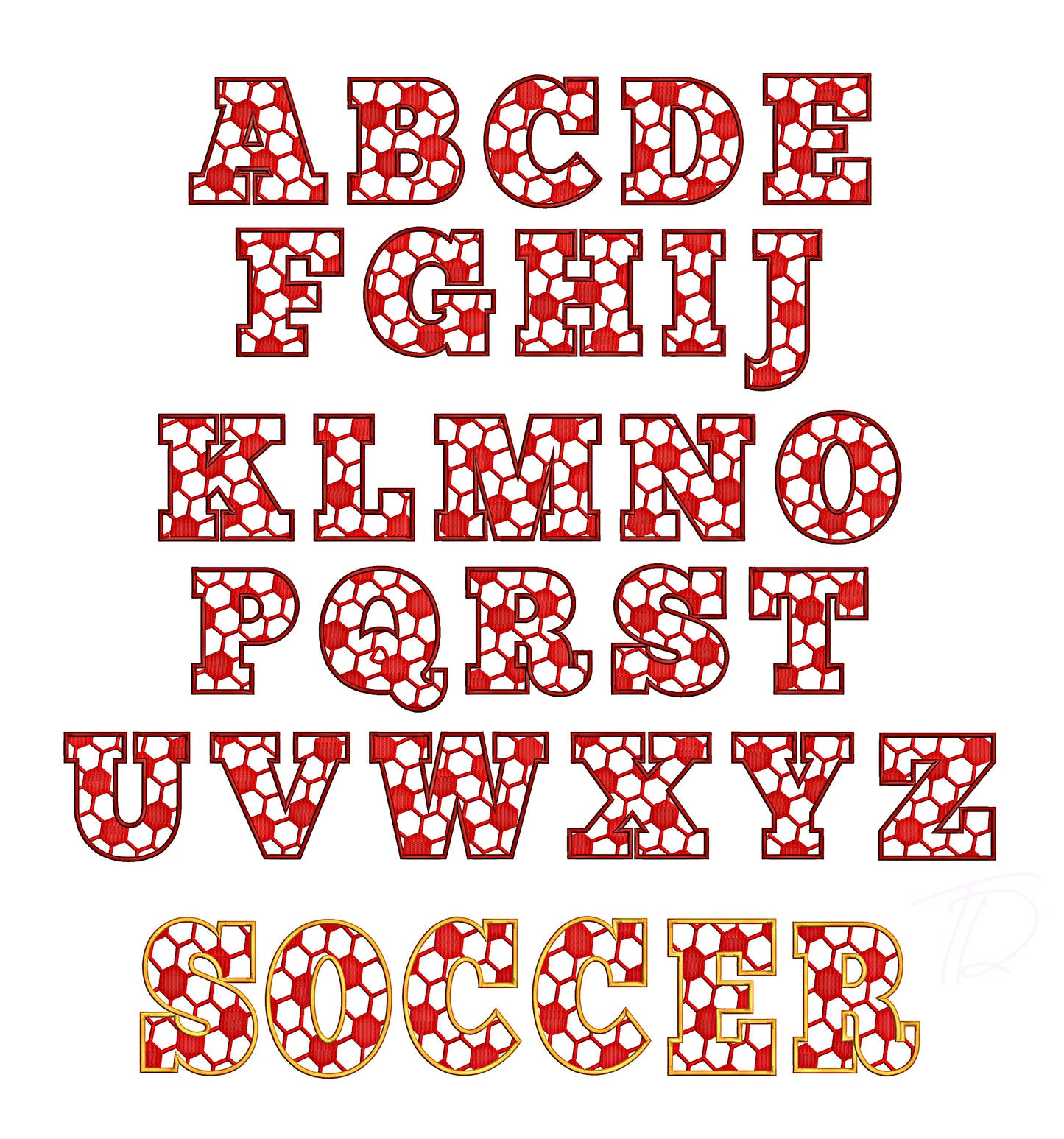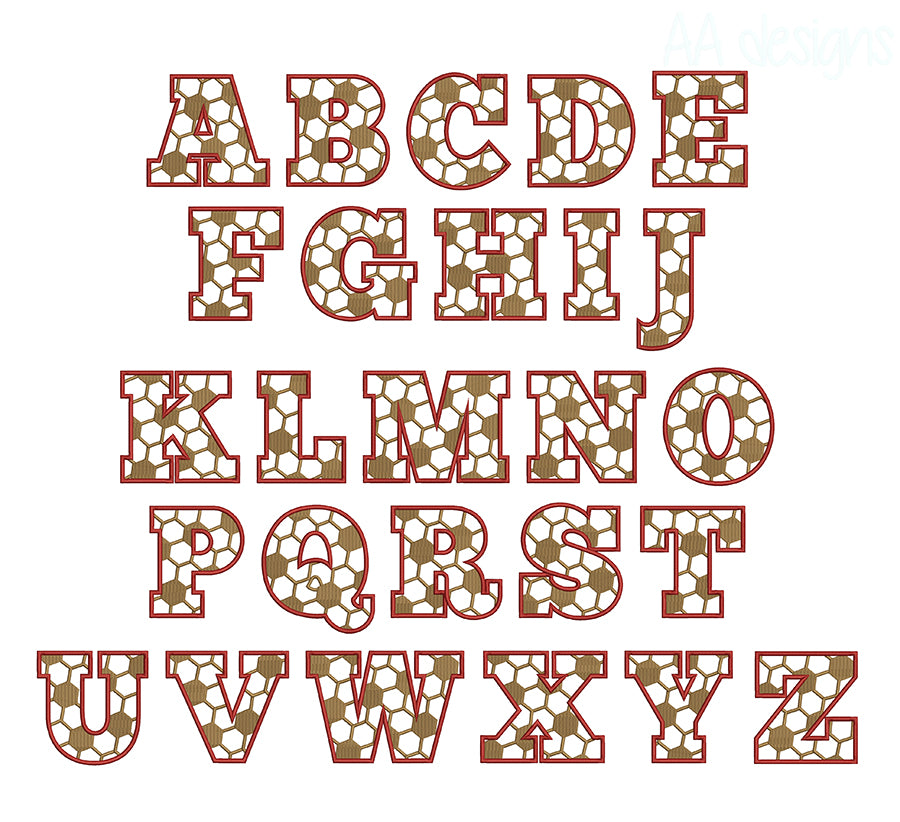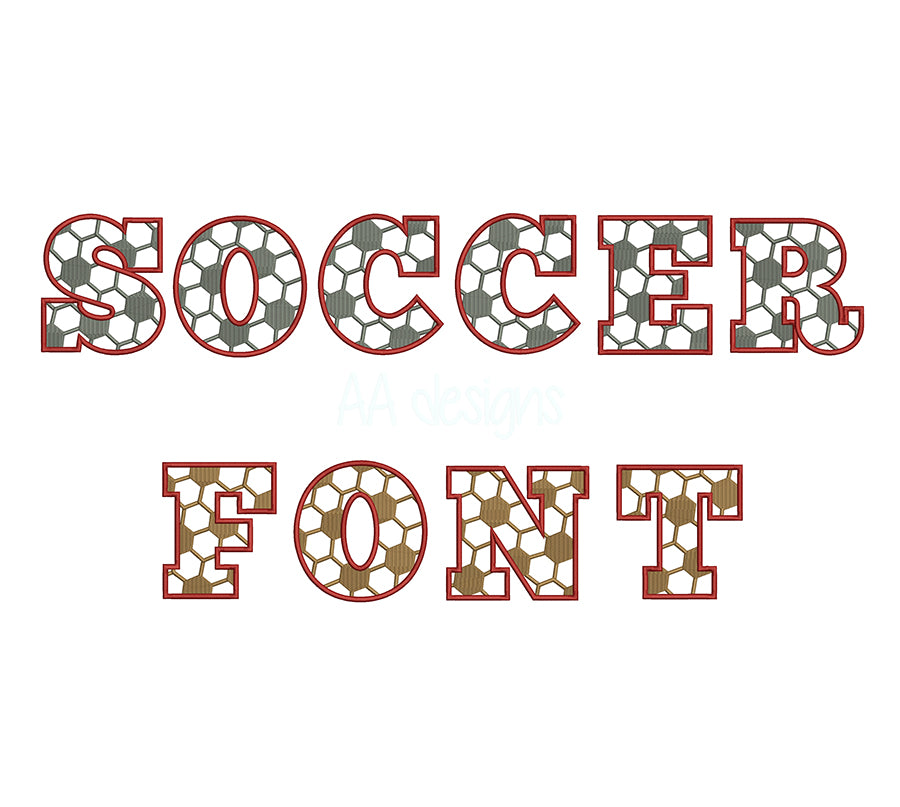
Soccer Embroidery Digital Font. Full fill stitch embroidery font.
Bring the beautiful game to your embroidery projects with our Soccer Embroidery Digital Font — a dynamic, sporty alphabet crafted for machine embroidery fans, team apparel makers, and sports gift creators worldwide.
- Bold, energetic letterforms inspired by classic soccer jersey typography
- Clean stitch paths optimized for sharp, professional results on all fabric types